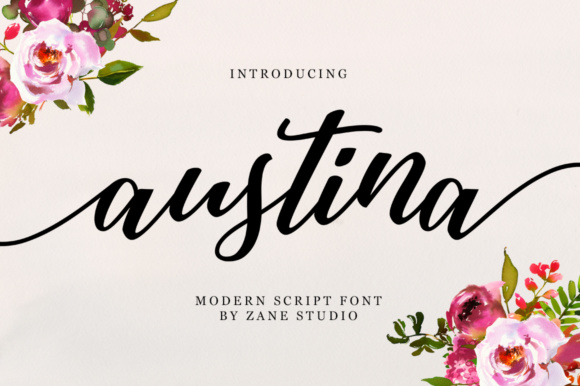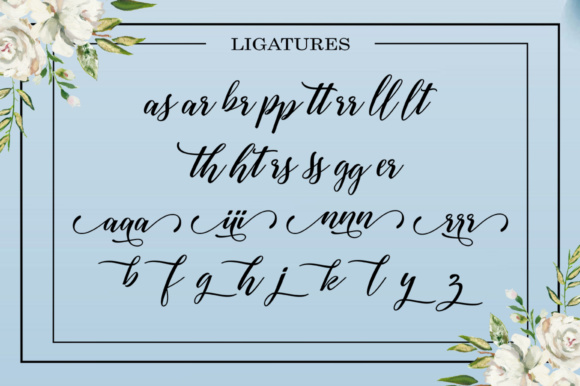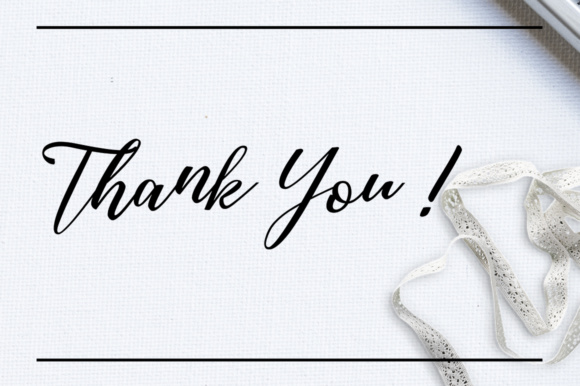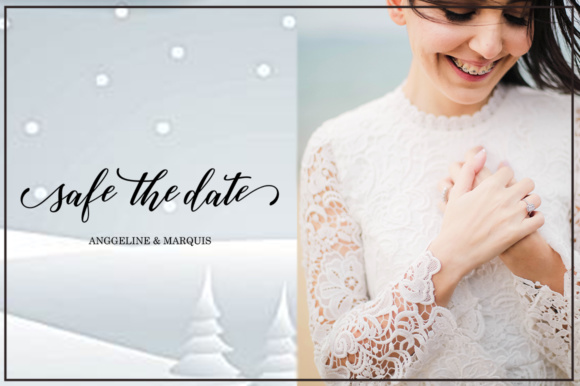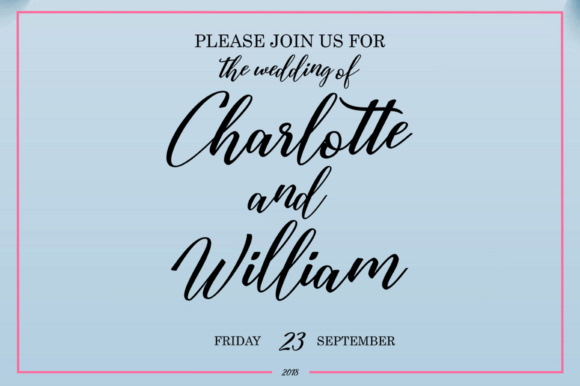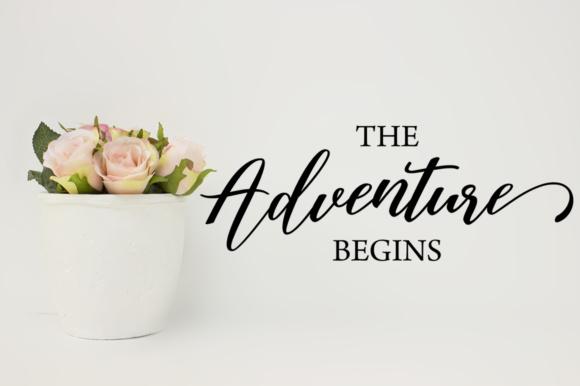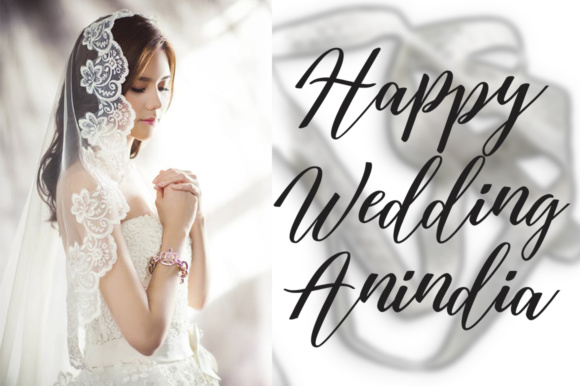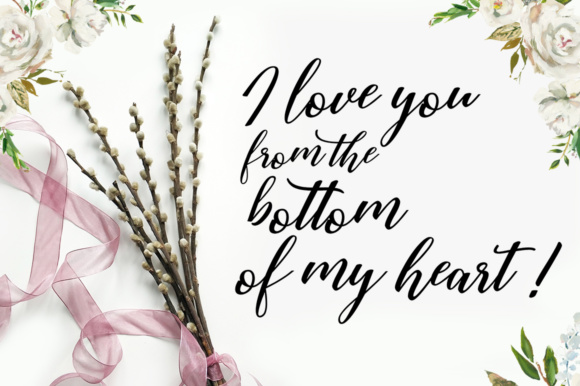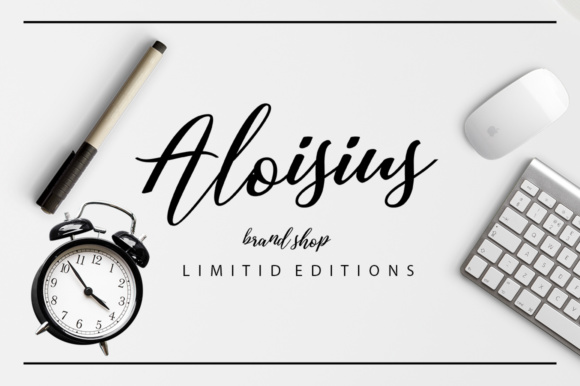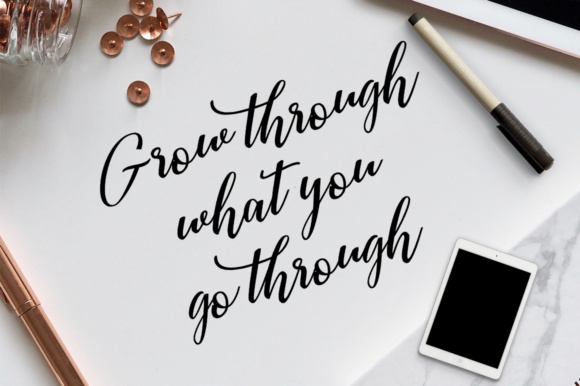
Austina Script Font
About Austina Script Font
the Austina is a modern script font with an irregular baseline. It has a trendy and feminine style which will look lovely on wedding invitations, thank you cards, quotes, greeting cards, logos, business cards and more.